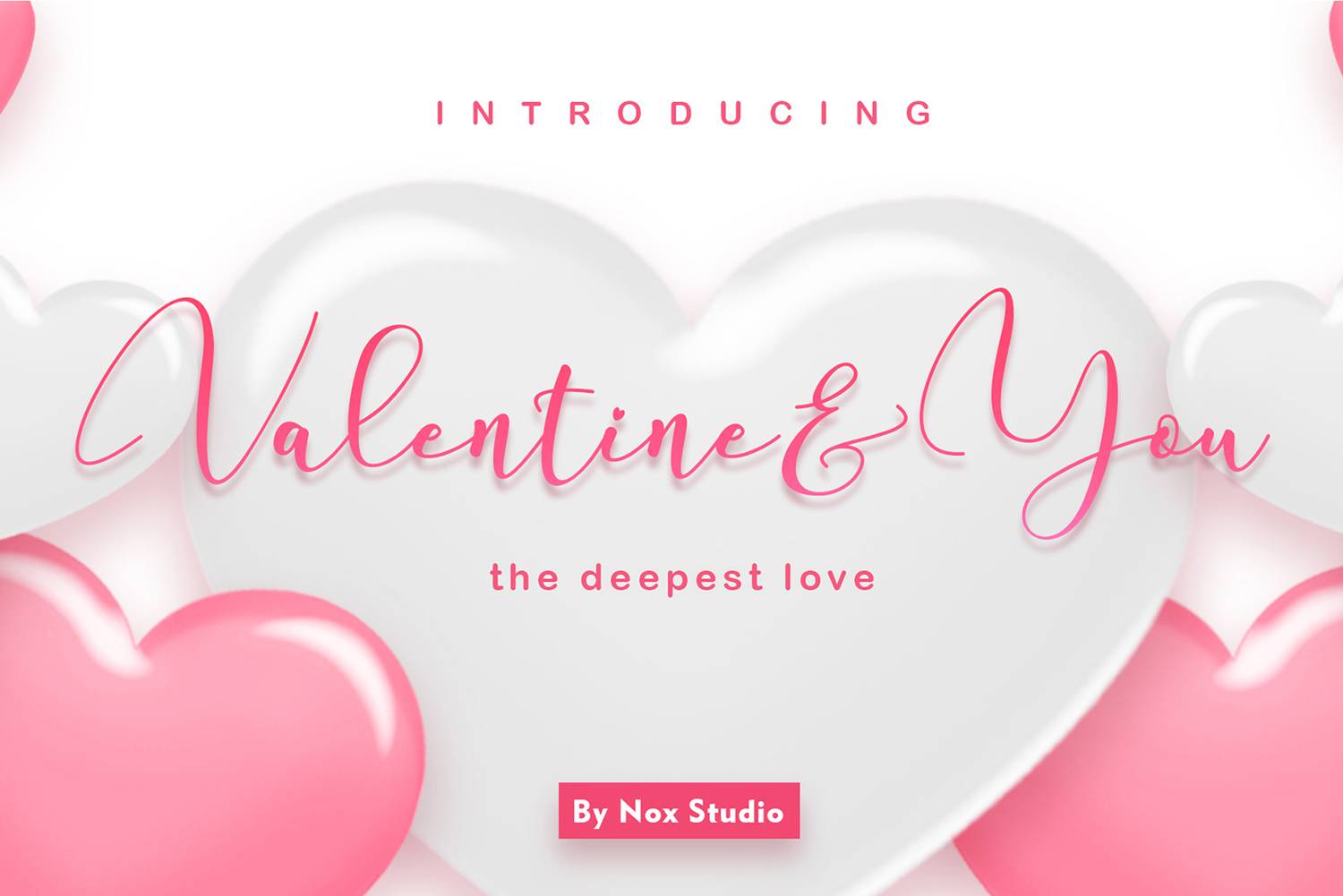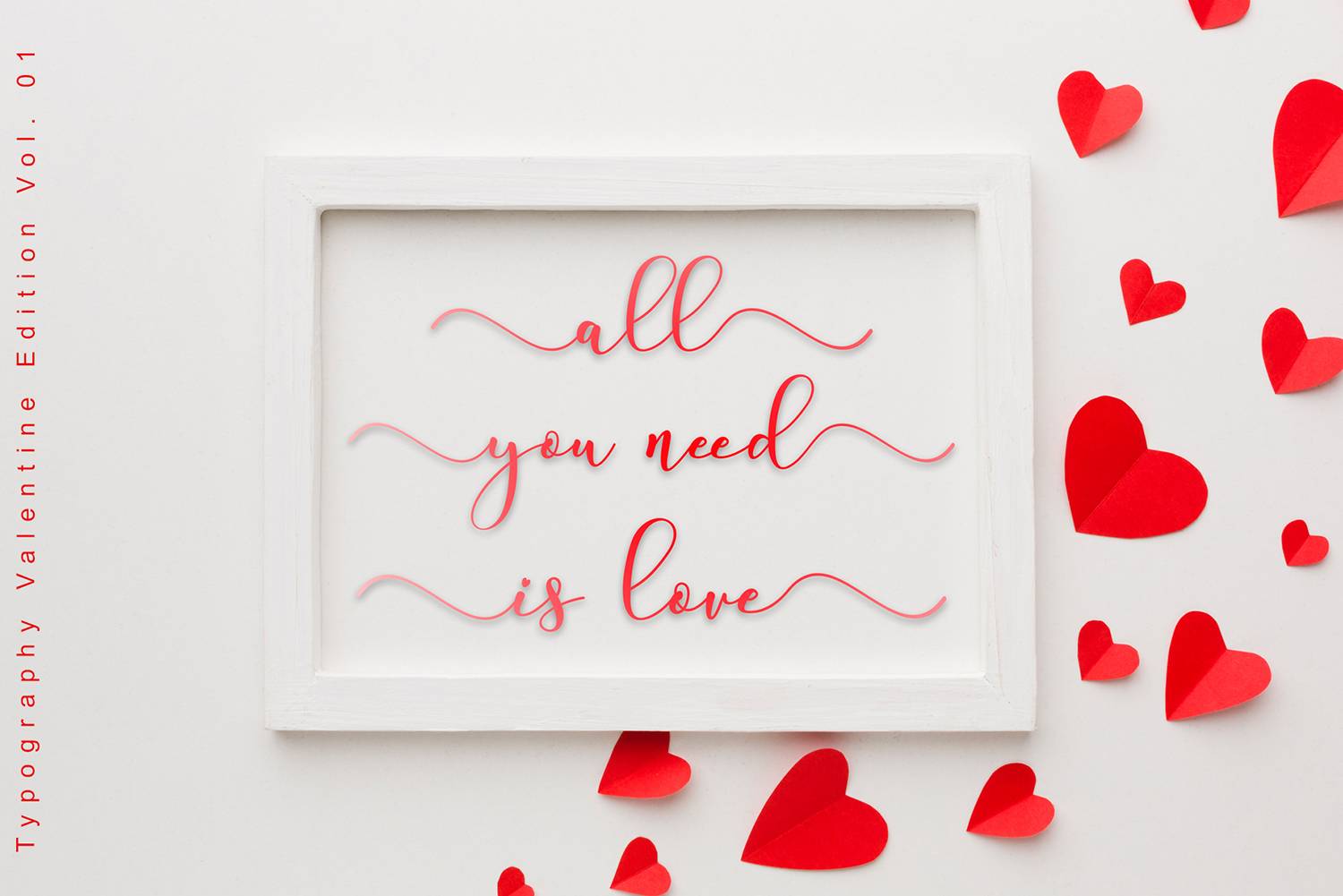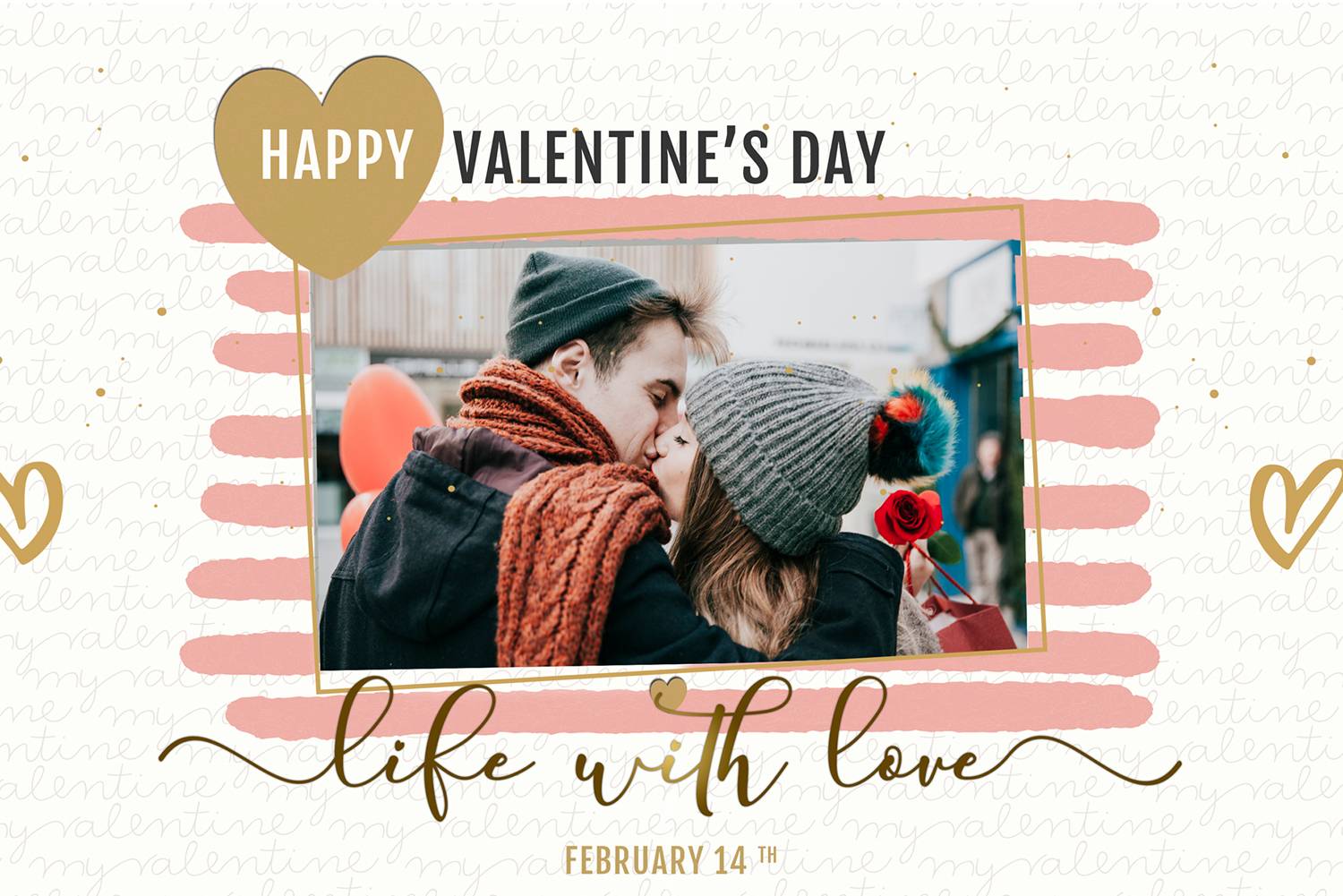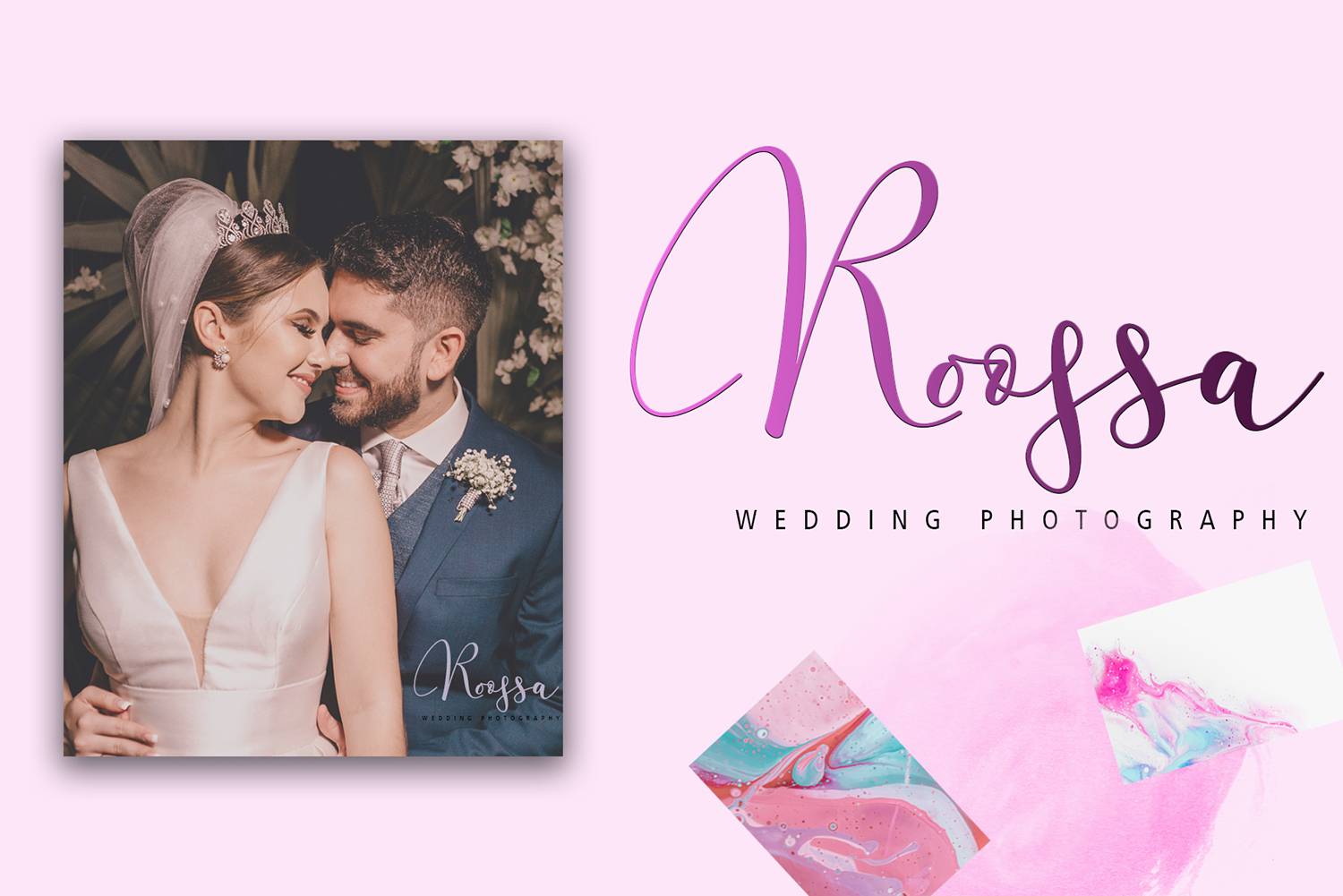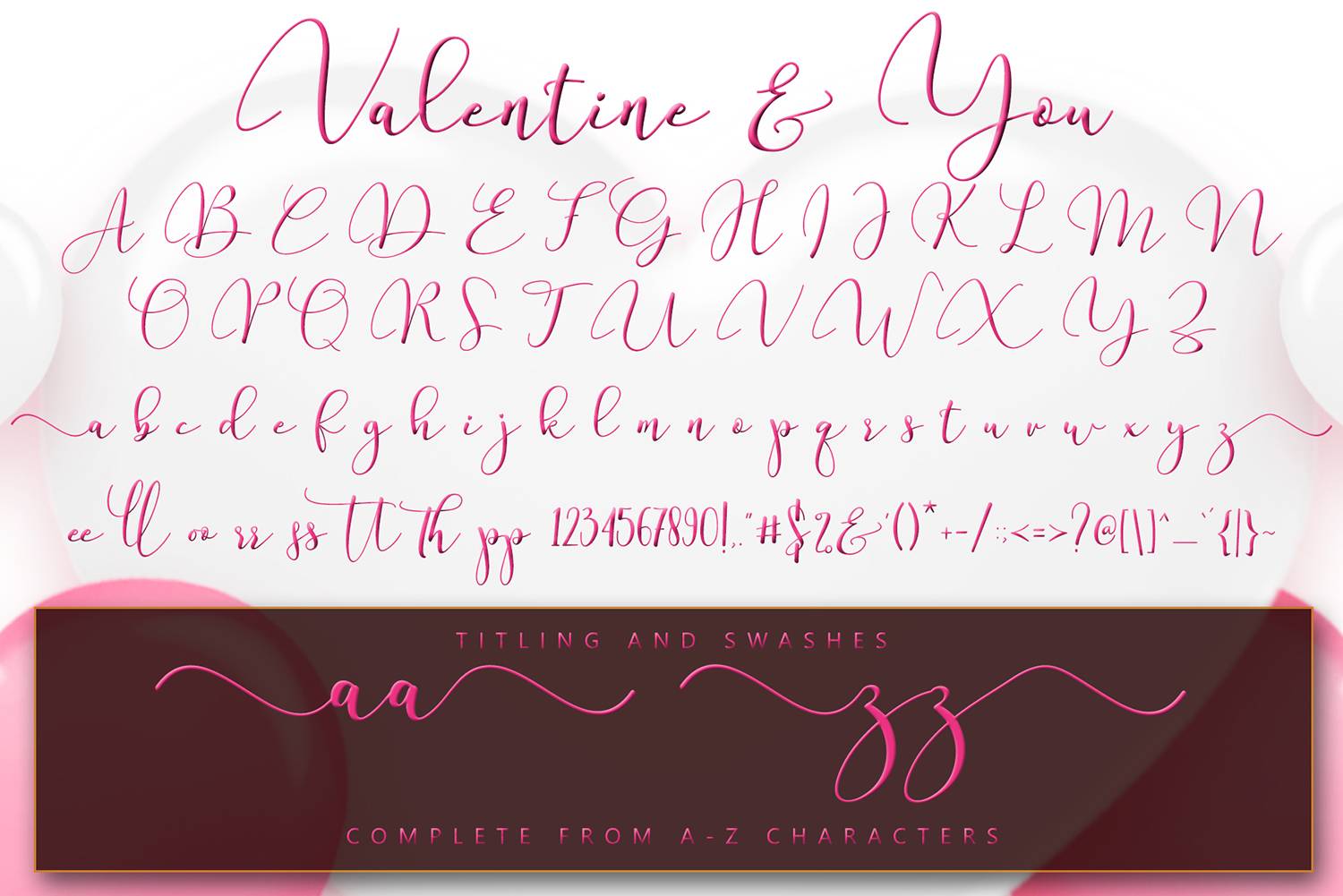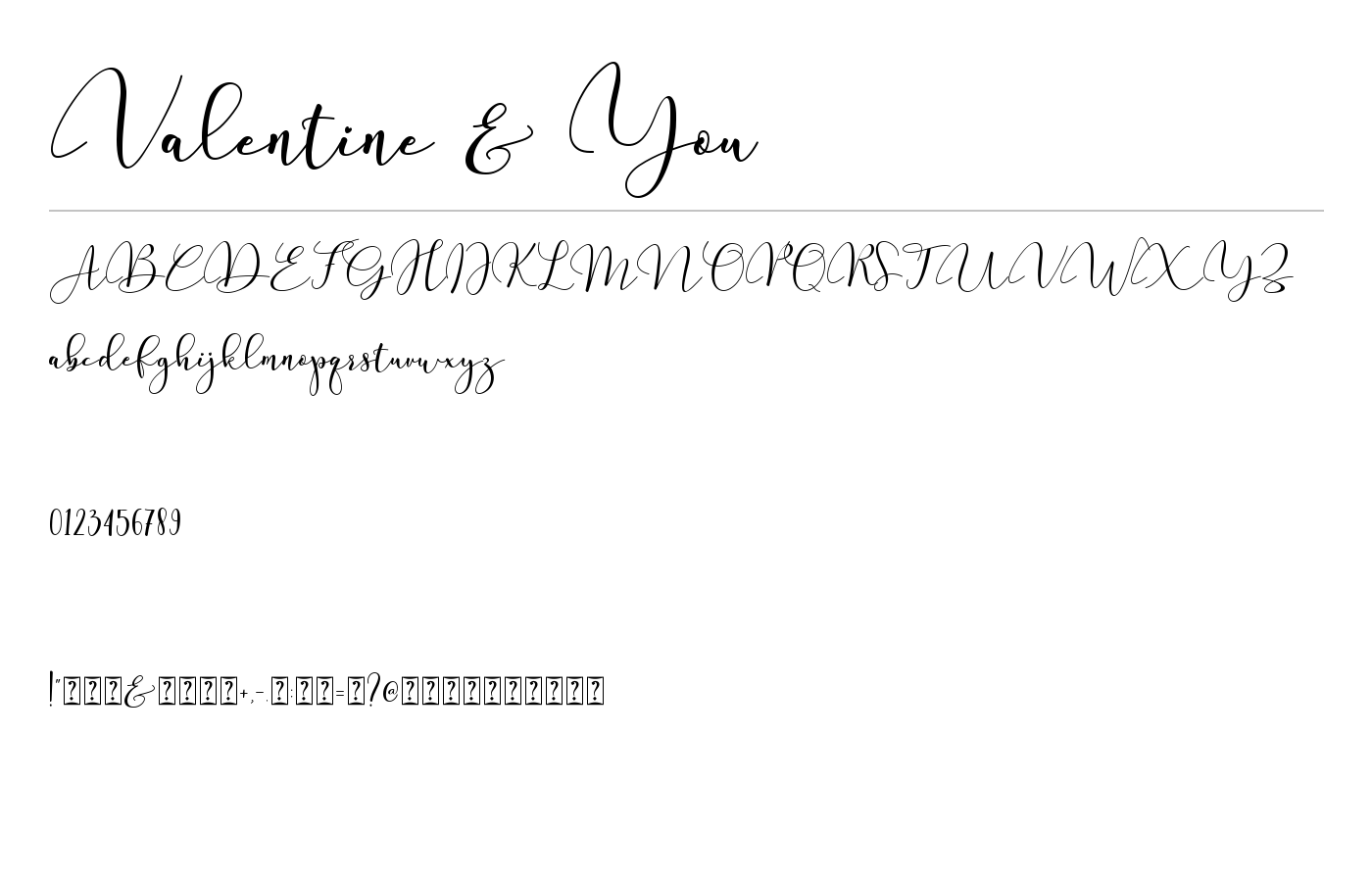
Valentine & You is an elegant script font with delicate, flowing strokes that give it a romantic and sophisticated feel. Its slender, calligraphic letterforms feature a graceful balance of high contrast and smooth curves, making it ideal for invitations, branding, and any design that calls for a refined, personal touch. This font works beautifully in settings where style and elegance are paramount, such as wedding stationery, luxury packaging, and stylish headlines.
Valentine & You Font
About Valentine & You Font
| Font family | Valentine & You Font |
| Designer | Nox Studio 2021 |